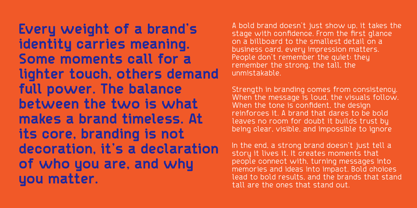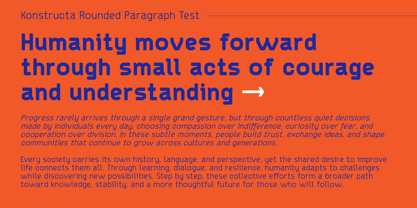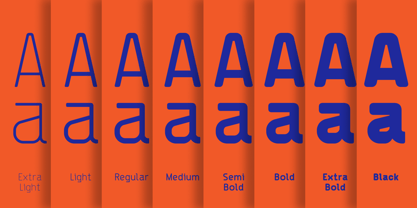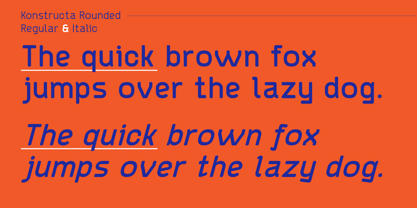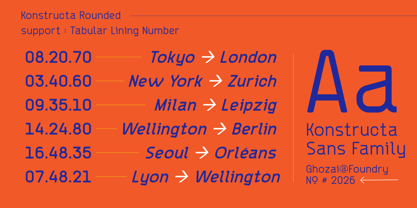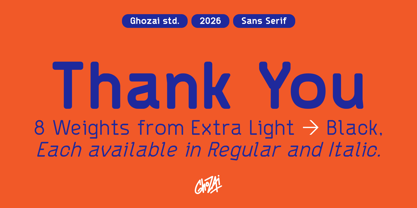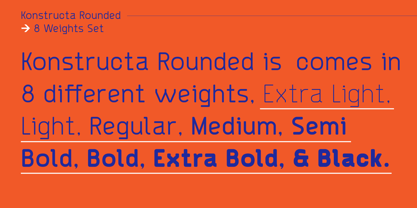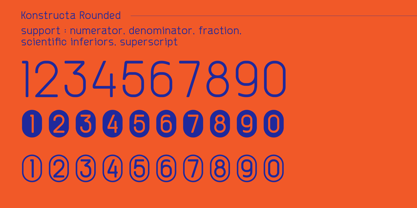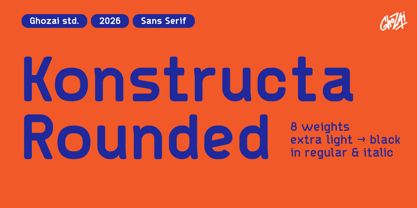
Konstructa Rounded
by Ghozai Studio
The Konstructa Rounded Font Family was designed by Manzur Ghozaali and published by Ghozai Studio. Konstructa Rounded contains 16 styles and family package options. More about this family
Konstructa Rounded is a grotesk-sans font family that offers 8 distinct weights ranging from Extra Light to Black, each available in both regular and italic styles, totaling 16 fonts. This extensive range of weights, along with a rich set of symbols, OpenType features, Tabular Lining numbers, and multilingual glyph support, ensures versatility for various languages and design needs. Its modern, clean, and bold aesthetic makes it perfect for a wide array of applications, including display, branding, signage, festival posters, sports, and more. Whether crafting impactful headlines, unique logos, or clear signage, Konstructa Rounded seamlessly combines style with functionality. Its adaptability to different design styles positions it as an excellent choice for any project requiring a bold and contemporary flair.
Designers: Manzur Ghozaali
Foundry: Ghozai Studio